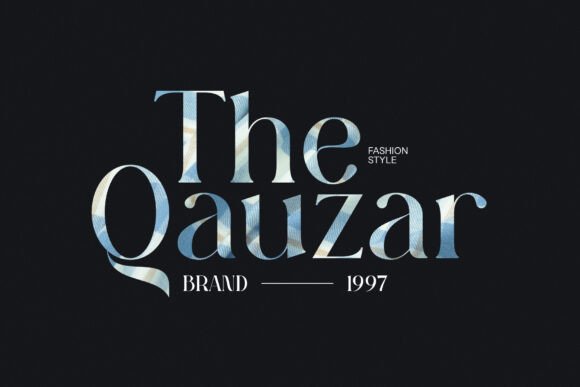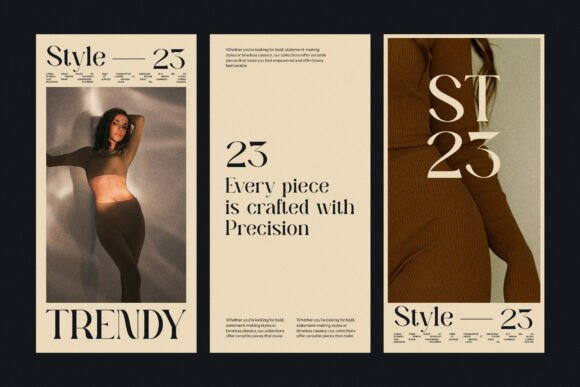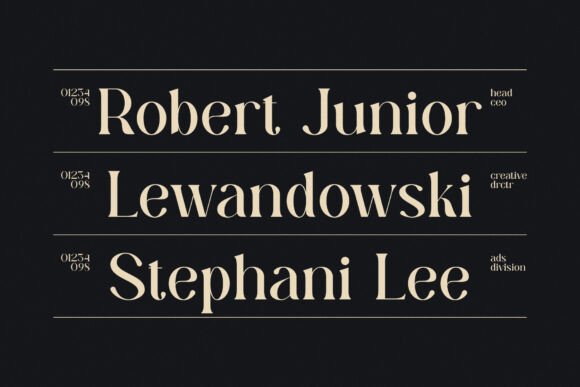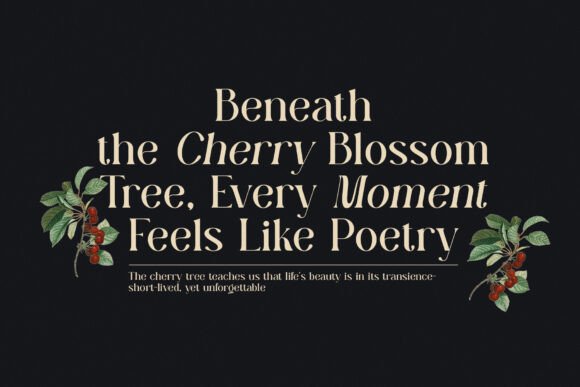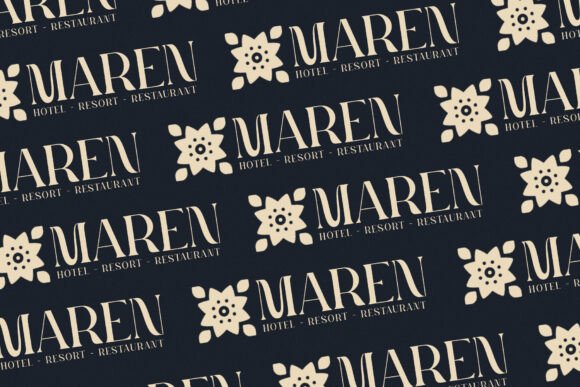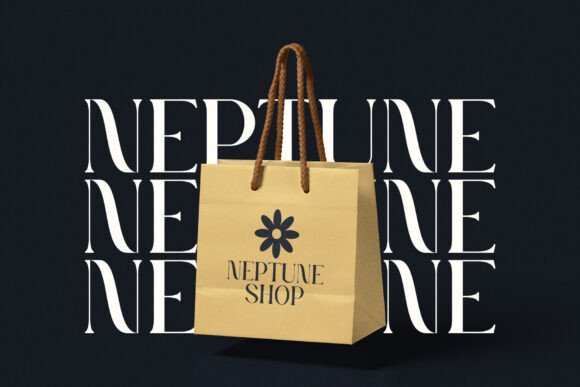
Introduction to Qelgin Font
Have you ever stared at a blank canvas, eager to bring a creative project to life, but struggling to find the perfect font to set the tone? That’s where Qelgin Font comes in – a stunning serif font that adds a touch of elegance to any design. Its smooth curves and sharp edges make it a versatile choice for a wide range of projects, from invitations and logos to corporate communications and marketing materials.
As a designer, you understand the importance of having access to high-quality design resources that can elevate your work and help you stand out from the crowd. Qelgin Font is a valuable addition to your design arsenal, offering a sophisticated and professional look that’s perfect for creative projects that require a level of refinement and polish.
With its classic and stylish design, Qelgin Font is an excellent choice for designers who want to add a touch of sophistication to their work. Whether you’re working on a free download project or need a font that can be used on a transparent background, Qelgin Font is a reliable and trustworthy option that’s sure to impress.
Key Features of Qelgin Font
- Unique, elegant design with a transparent background, perfect for creative projects
- Perfect for use in various design applications, including logos, typography, and branding
- Supports a wide range of languages, including Latin, Cyrillic, and Greek alphabets
Honest Review: Qelgin Font
As a designer, I’m always on the lookout for high-quality design resources to elevate my creative projects. The Qelgin Font caught my attention with its unique, modern aesthetic, and I decided to put it to the test.
- ✨ Unique, modern design that can add a touch of elegance to any project.
- ✨ High quality, clear and crisp typography that’s perfect for a variety of design applications.
- ⚠️ Limited font weights and styles, which may limit its versatility in certain design contexts.
- ⚠️ Not ideal for use in very small font sizes, as it may become difficult to read.
Overall, I’m impressed with the Qelgin Font’s design and versatility. While it may have some limitations, it’s a great addition to any designer’s toolkit. If you’re looking for a unique, high-quality font to elevate your creative project, I’d definitely recommend giving the Qelgin Font a try.
Tips for Getting the Most Out of Qelgin Font
To get the most out of the Qelgin Font, use it on a transparent background to create a high-quality design. This font is ideal for creative projects that require a unique and eye-catching typography.
The Qelgin Font is commonly used in a variety of design projects, including logos, brochures, and social media graphics. Its high-quality design and unique style make it an excellent choice for any creative project.